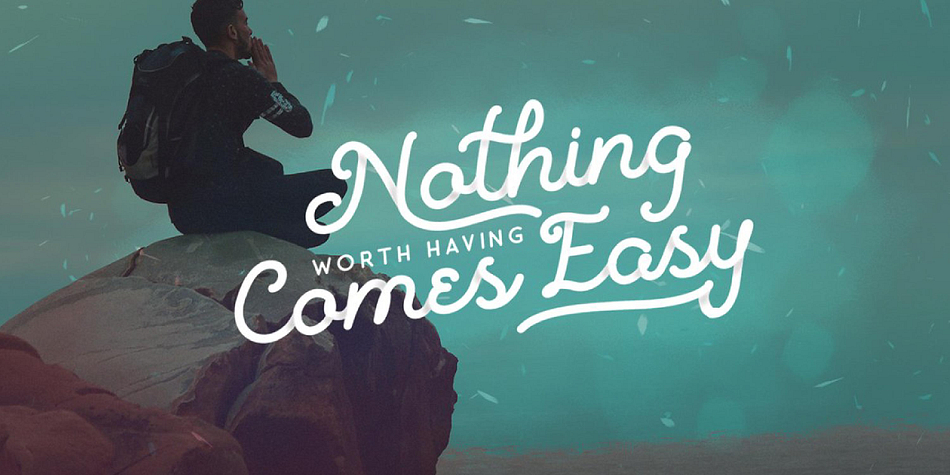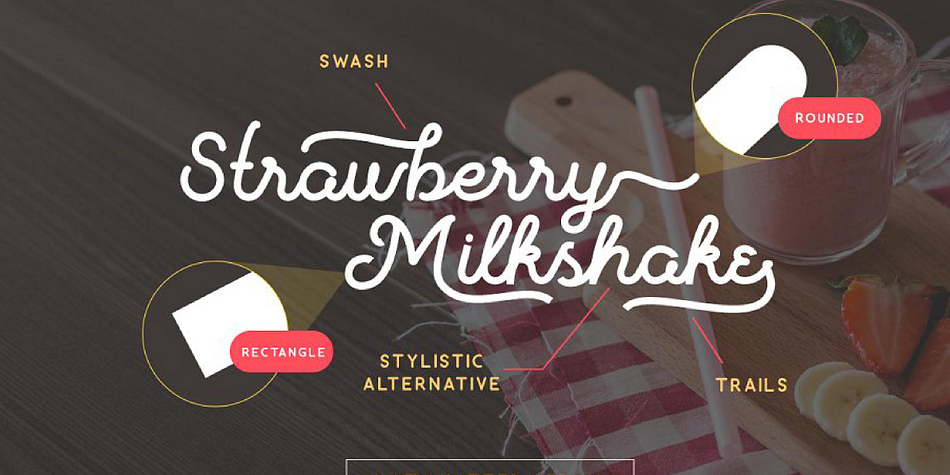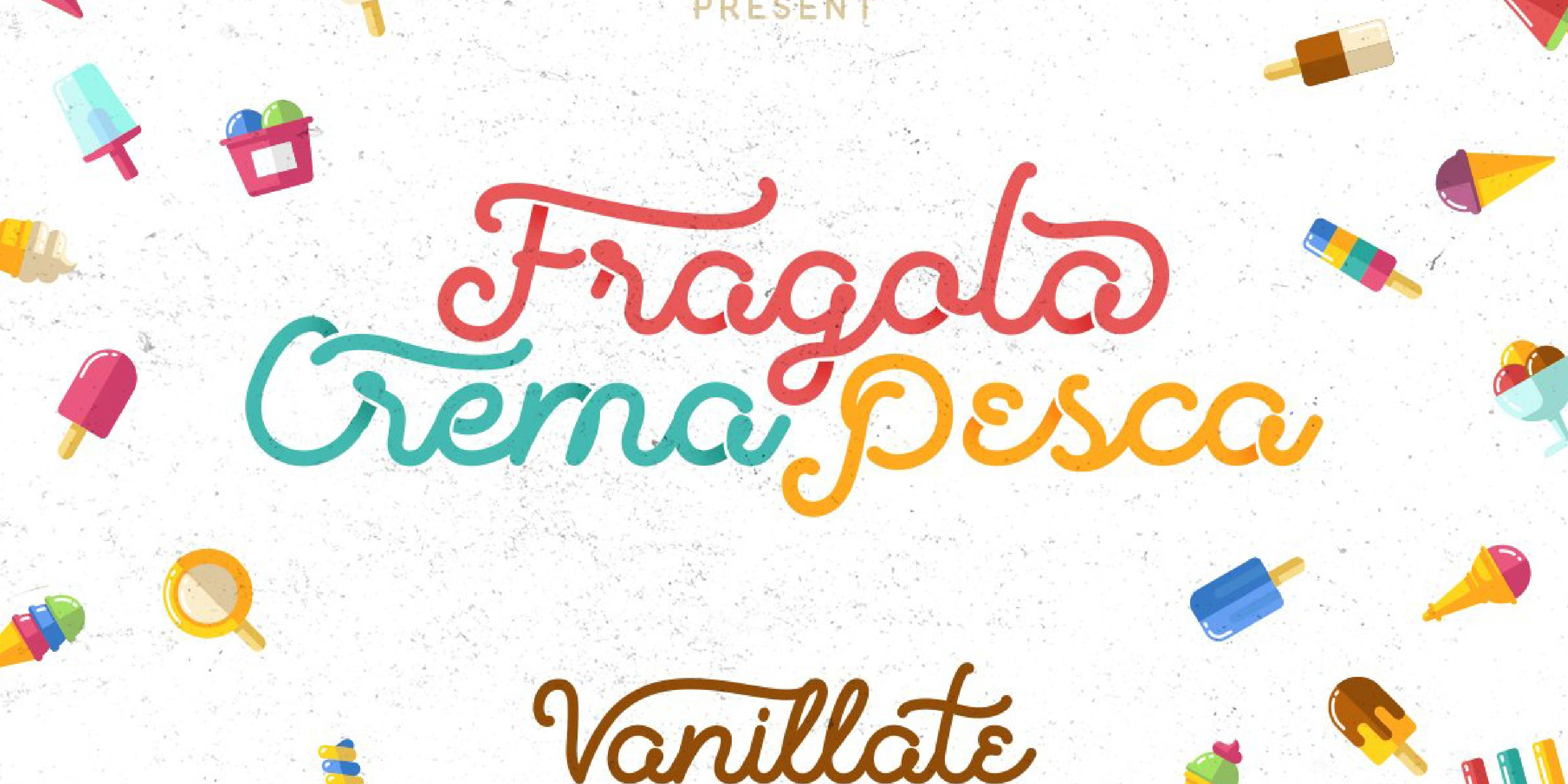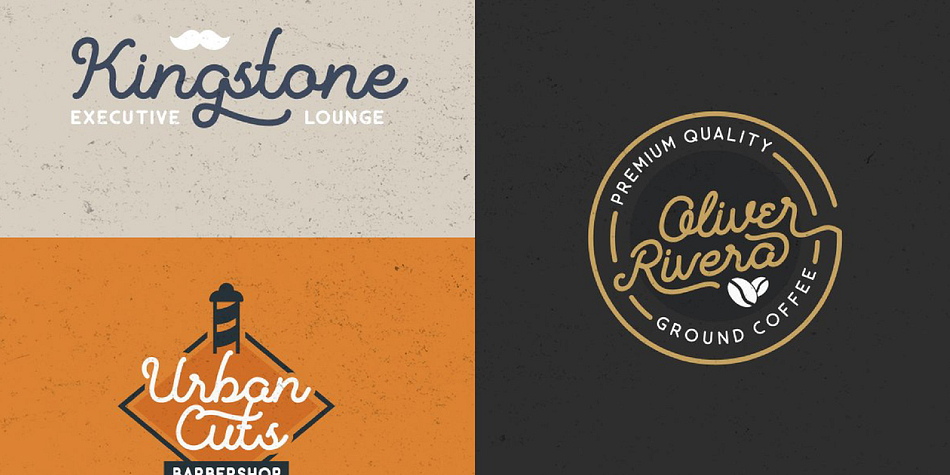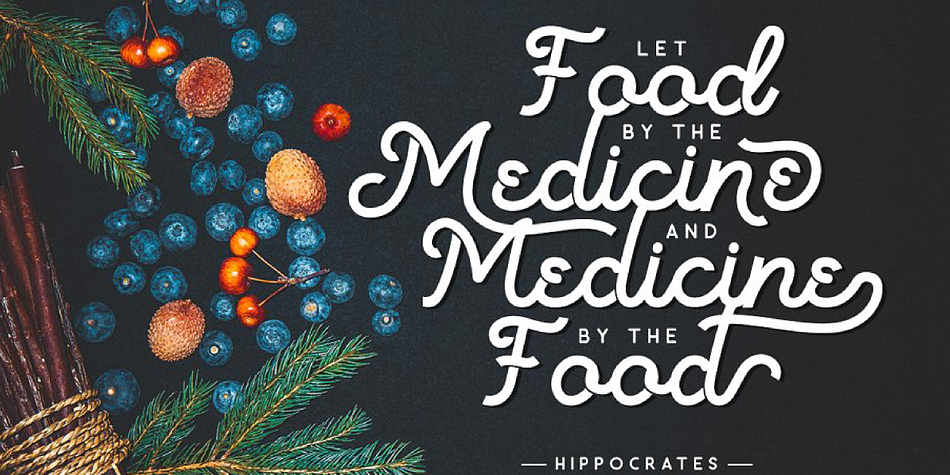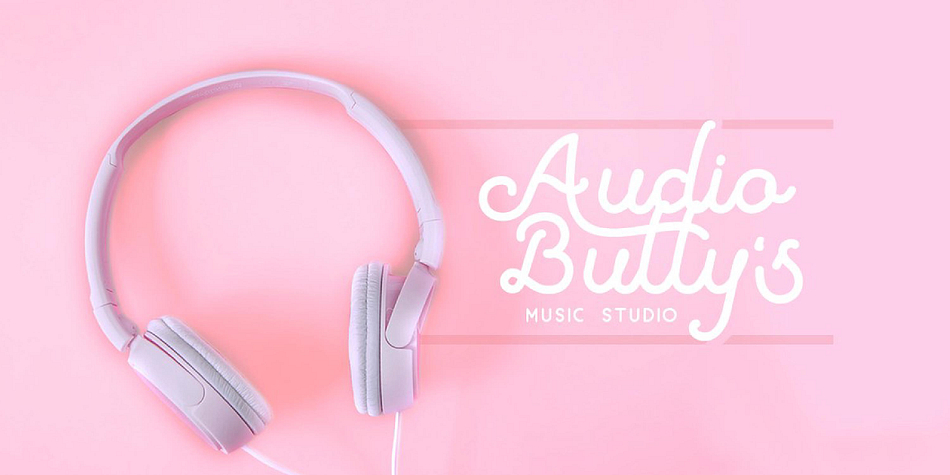
Designed by Hendry Juanda, Vanilatte is a display sans and script font family. This typeface has five styles and was published by Letterhend Studio.
Introducing, Vanilatte Font Duo, unique monoline script typeface with two styles of monoline. This font is comes in uppercase, lowercase, punctuations, symbols & numerals, stylistic set alternate, ligatures, etc. We also included the sans font as complementary, and also 15 bonus ready made logo templates with food theme!